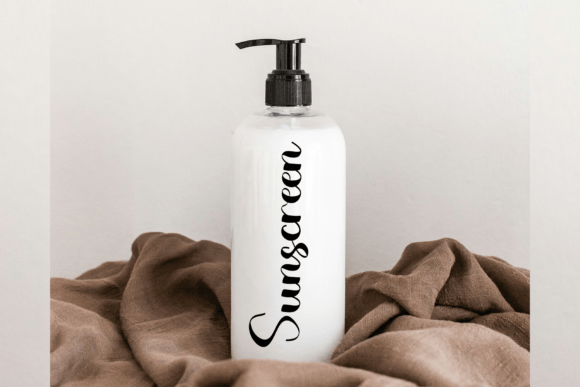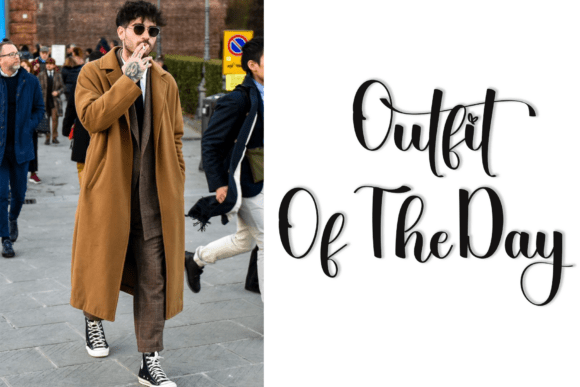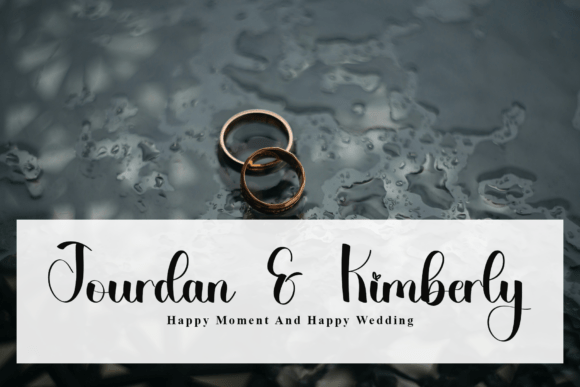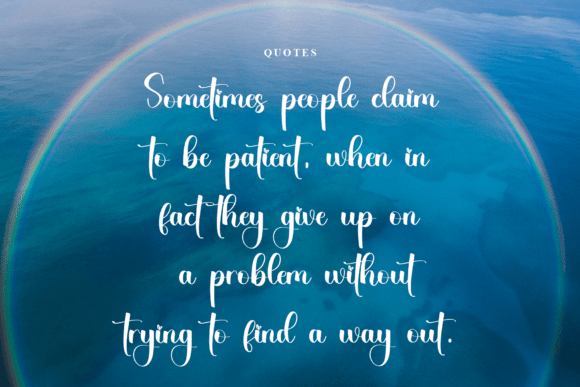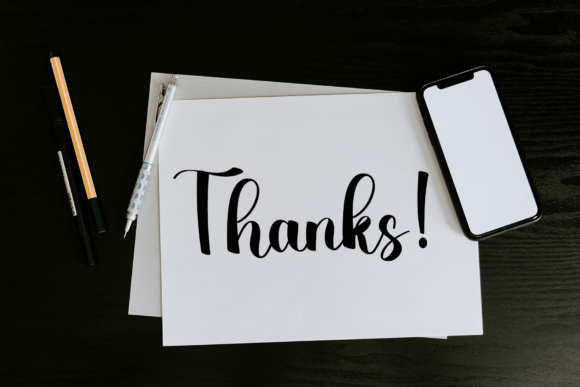
Introducing Graduation: A Timeless Handwritten Font for Modern Design
Are you looking for a font that exudes elegance, sophistication, and a touch of classic charm? Look no further than Graduation, a stylish handwritten font that brings a contemporary atmosphere to your design projects. Inspired by timeless classic calligraphy, Graduation is the perfect choice for designers and crafters seeking to add a touch of refinement to their work.
The Inspiration Behind Graduation
Graduation font is rooted in traditional calligraphy, with a modern twist that sets it apart from more traditional fonts. The creator of Graduation drew inspiration from classic calligraphic styles, refining and updating them to create a font that is both nostalgic and fresh. The result is a font that feels both timeless and contemporary, perfect for a wide range of design applications.
Key Features of Graduation Font
So, what makes Graduation font so special? Here are just a few of its key features:
- Balanced and Varied: Graduation font is designed to be balanced and varied, with a range of letterforms and ligatures that add visual interest to your text.
- Impeccable Form: Each letter in Graduation font is carefully crafted to ensure impeccable form and a high level of legibility.
- Contemporary Atmosphere: Despite its classic inspiration, Graduation font has a distinctly modern feel that will elevate your designs and set them apart.
- Handwritten Charm: Graduation font retains the charm and personality of handwritten script, adding a touch of warmth and humanity to your designs.
Use Cases for Graduation Font
Graduation font is incredibly versatile, making it suitable for a wide range of design projects. Here are just a few ideas to get you started:
- Wedding Invitations: Add a touch of elegance and sophistication to your wedding invitations with Graduation font.
- Branding and Packaging: Use Graduation font to create a distinctive brand identity that exudes refinement and style.
- Stationery and Cards: Graduation font is perfect for creating beautiful stationery, greeting cards, and other paper goods.
- Signage and Displays: Make a statement with Graduation font on signage, banners, and other display materials.
Tips for Using Graduation Font Effectively
To get the most out of Graduation font, here are a few tips to keep in mind:
- Use it sparingly: Graduation font is a statement font, so use it sparingly to avoid overwhelming your design.
- Pair it with contrasting fonts: Combine Graduation font with simpler fonts to create visual interest and hierarchy.
- Experiment with colors: Graduation font looks beautiful in a range of colors, from rich jewel tones to metallic finishes.
Graduation font is a truly special font that brings a unique combination of classic charm and modern style to your design projects. Whether you’re a designer, crafter, or DIY enthusiast, Graduation font is sure to inspire and elevate your work. With its impeccable form, balanced and varied letterforms, and contemporary atmosphere, Graduation font is the perfect choice for anyone seeking to add a touch of sophistication and elegance to their designs.